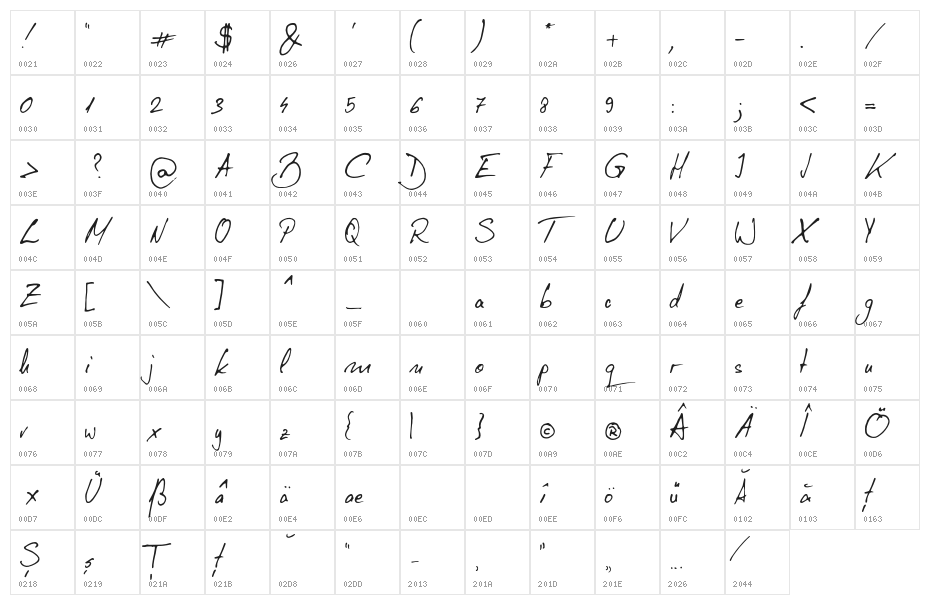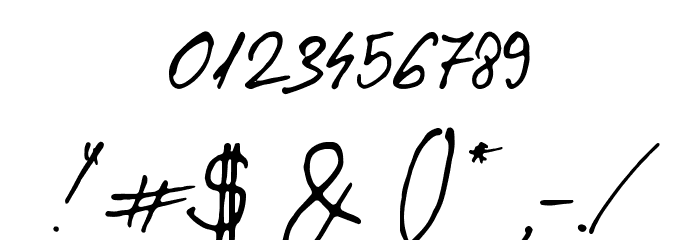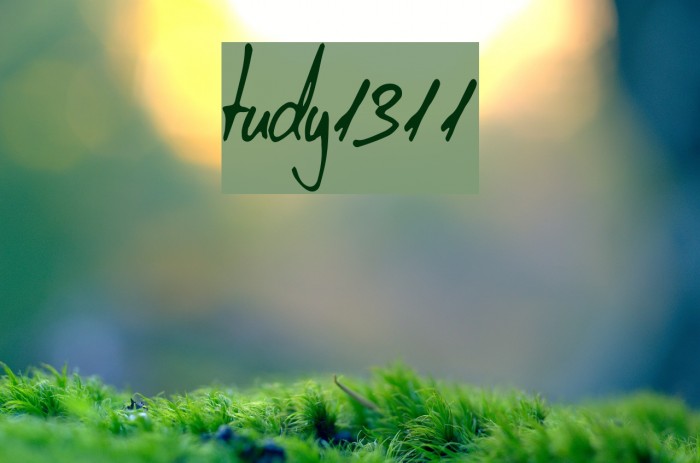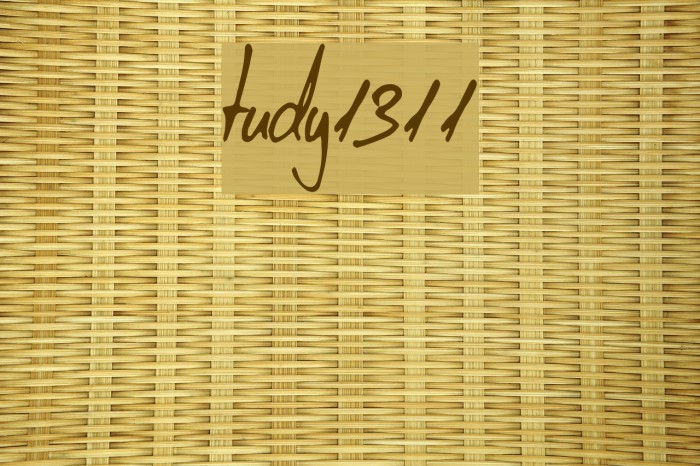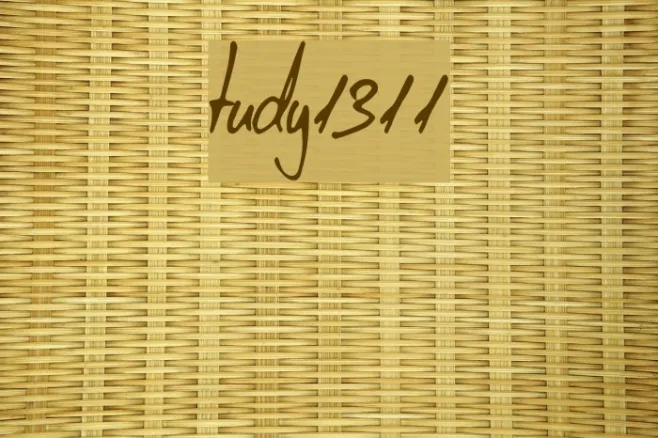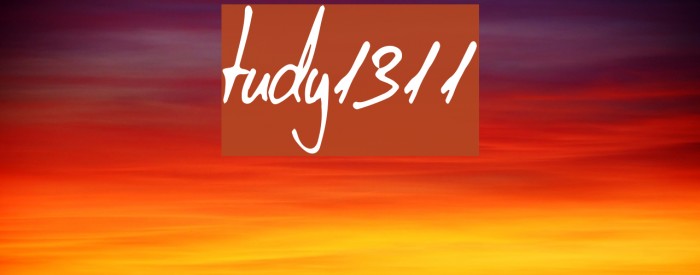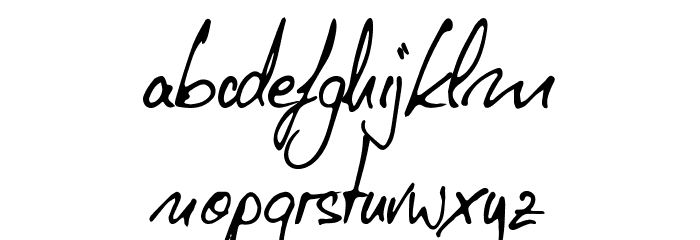
tudy1311 Font
tudy1311 Description
This font exudes a dynamic and expressive style, characterized by its fluid and cursive strokes. The uppercase letters are bold and sweeping, with a sense of motion and flair that suggests a handwritten quality. The lowercase letters maintain this fluidity, offering a more compact and connected appearance. Numbers and special characters are crafted with the same energetic strokes, ensuring consistency throughout. The overall design is reminiscent of artistic handwriting, making it suitable for projects that require a personal touch or a creative flair.